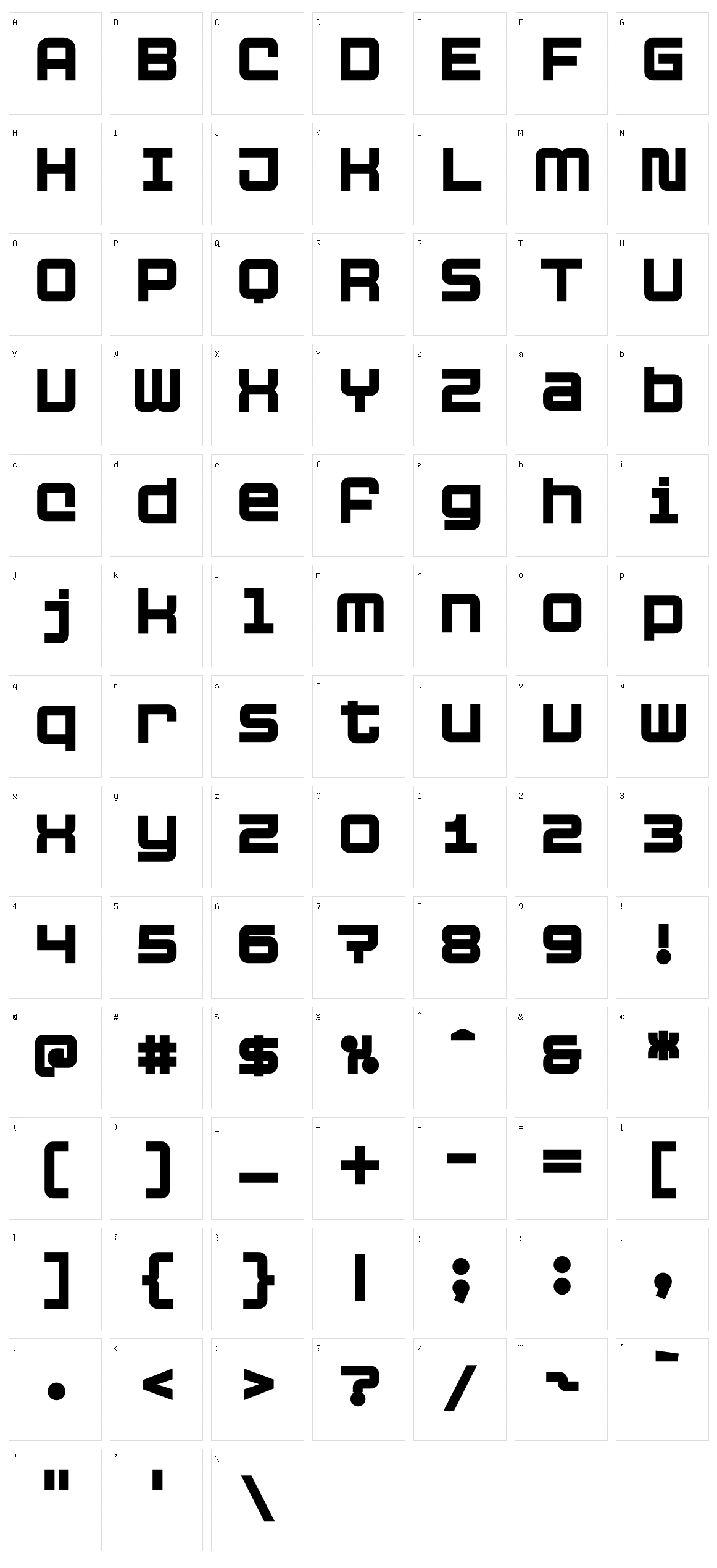
Cubest is a geometric sans-serif typeface.
Created by Mans Greback in 2021, this futuristic font has a square, monolined appearance with a retro-digital style.
The family consists of eight styles: In addition to Light, Medium and Bold, it is also provided as Cubest Monospace and Cubest Variable, plus each weight as Italic.
The font supports all European Latin-based languages and contains all symbols, characters, punctuation and numbers.
The font is built with advanced OpenType functionality and has a guaranteed top-notch quality, containing stylistic and contextual alternates, ligatures and more features; all to give you full control and customizability.
It has extensive lingual support, covering all Latin-based languages, from North Europe to South Africa, from America to South-East Asia.
It contains all characters and symbols you'll ever need, including all punctuation and numbers.